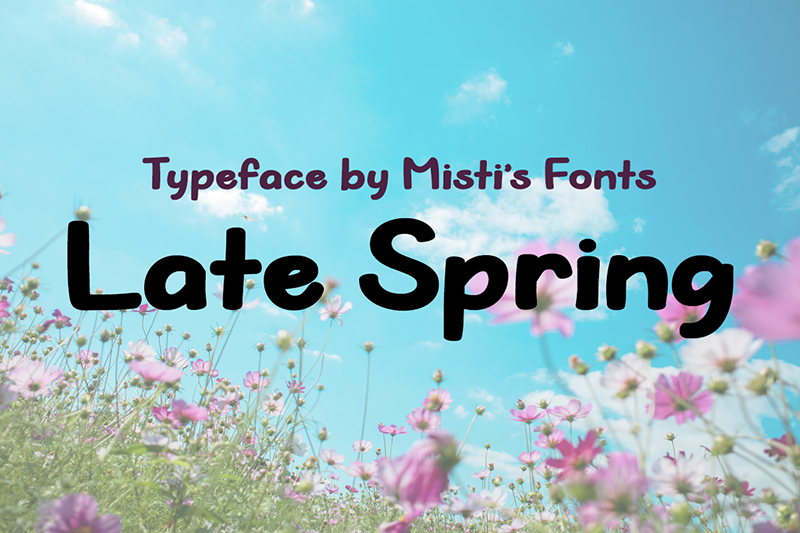
Font name: | Late Spring |
Late Spring is a bold handwritten typeface full of personality and warmth. With confident strokes and casual charm, it�s perfect for logos, posters, branding, and social media that need a personal, energetic, and eye-catching touch. Terms Of Use and Commercial Licensing: https://mistifonts.com/late-spring/ |